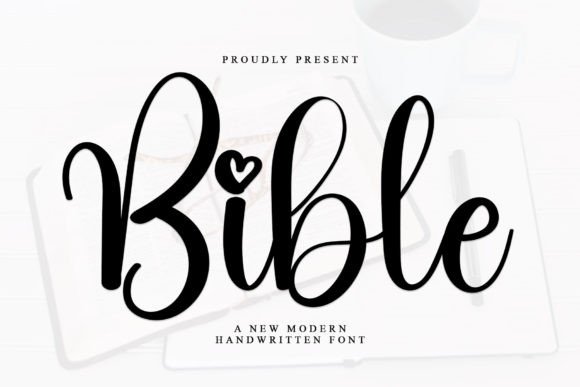
The Magic of Bible Font: Elevate Your Designs with Whimsy and Charm
Have you ever been working on a design project, pouring your heart and soul into it, only to feel like something’s missing? You’re not alone! I recall a recent experience where I was creating a custom greeting card for a friend’s birthday. I had the perfect image, the ideal color palette, but I just couldn’t find the right font to tie everything together. That’s when I stumbled upon Bible Font, and let me tell you, it was like magic! ✨
• ✨ Enchanting decorative elements: Bible Font is packed with whimsical flair, making it perfect for adding a touch of wonder to your designs.
• 🎉 Versatile: From greeting cards and gift tags to holiday-themed projects, Bible Font brings a cheerful and nostalgic ambiance to your words.
A Few Quirks to Consider
While Bible Font is a stunning addition to any design project, there are a few things to keep in mind:
• ⚠️ Glyph overload: With so many decorative elements to choose from, it’s easy to get carried away. Make sure to balance your design to avoid overwhelming your audience.
• 🤔 Legibility: While Bible Font is beautiful, some of the more intricate glyphs might be difficult to read at smaller font sizes.
The Story Behind Bible Font
Bible Font was inspired by traditional typography and the nostalgic feel of vintage books and documents. The designer aimed to create a font that would evoke a sense of wonder and enchantment, perfect for creative projects that require a touch of whimsy.